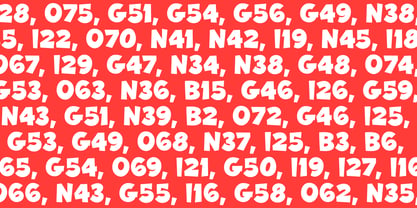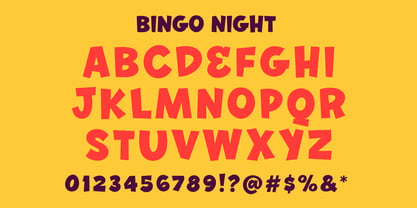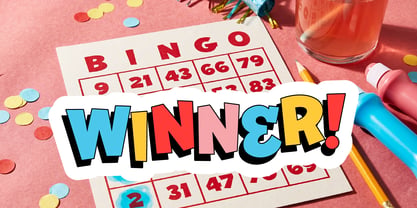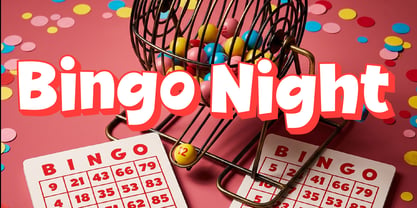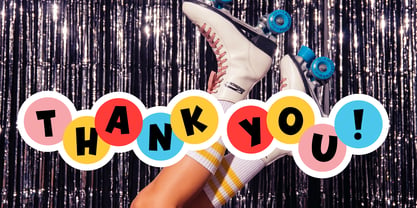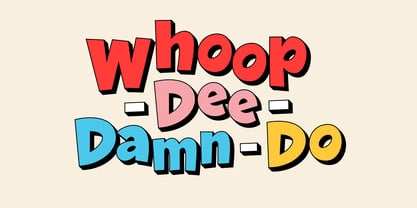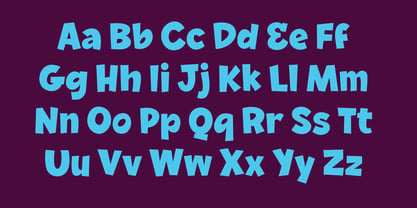
Bingo Night
La familia tipográfica Bingo Night fue diseñada por Annica Lydenberg y publicada por Dirty Bandits. Bingo Night contiene 1 estilos. Más información sobre esta familia
Bingo Night is a display font that celebrates the joy of imperfection. Inspired by hand-painted carnival signs and vintage type, it features a heavy, rhythmic weight and a "wonky" geometry that gives your text an instant sense of history and personality.
It’s bold, it’s loud, and it doesn't care about being "perfect"—which is exactly why it stands out.
Key Features:
• Irregular Rhythm: Each character is designed with a unique baseline and slant, creating a lively, dancing effect when typed.
• High Visual Weight: Built for headlines that need to be felt as much as they are read.
• Nostalgic Soul: Effortlessly fits into mid-century, Americana, or retro-modern aesthetics
• Mutli Language Support: Includes a wide range of accented characters